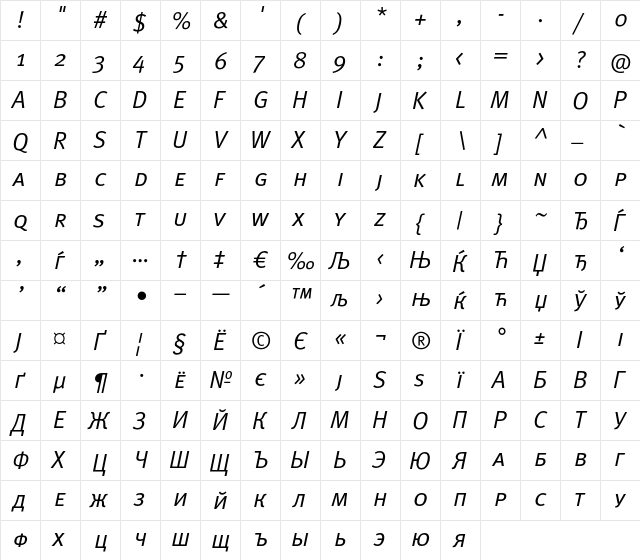
MetaNormalCyr-ItalicCaps Regular
Design Context for MetaNormalCyr-ItalicCaps Typeface
MetaNormalCyr-ItalicCaps offers clean, dependable letterforms without strong stylistic allegiance, making it a practical choice for designers who need flexibility. The dynamic lean of this cut emphasises speed and emphasis in any layout.
Pro Tip: Try MetaNormalCyr-ItalicCaps for annotation and caption copy alongside an upright companion — the contrast in angle creates a dynamic but ordered typographic system.